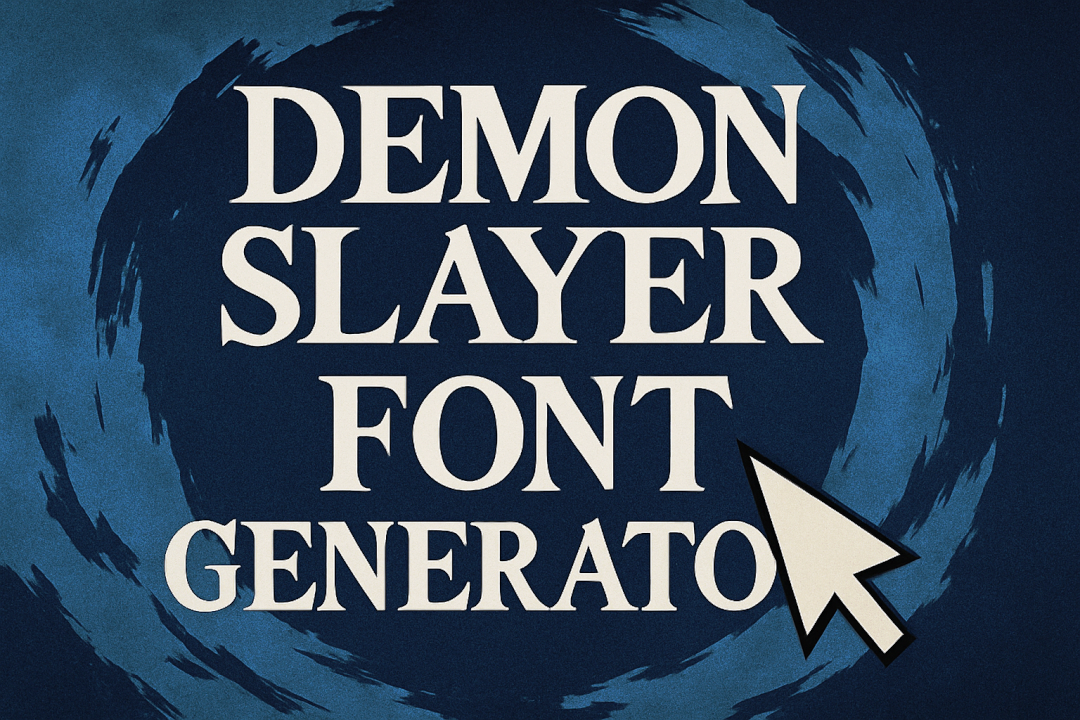
โ๏ธ Demon Slayer Font Generator โ๏ธ
๐ธ Create epic anime text with Blood Crow fonts, demon slayer effects, and Japanese-inspired styles! Perfect for manga, anime content, and warrior themes! โก